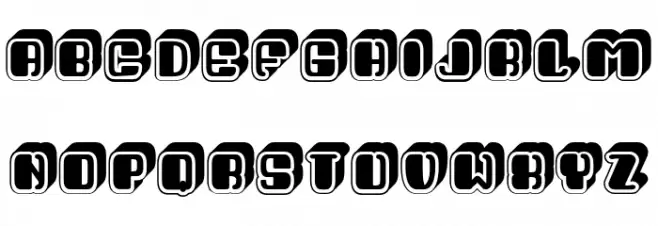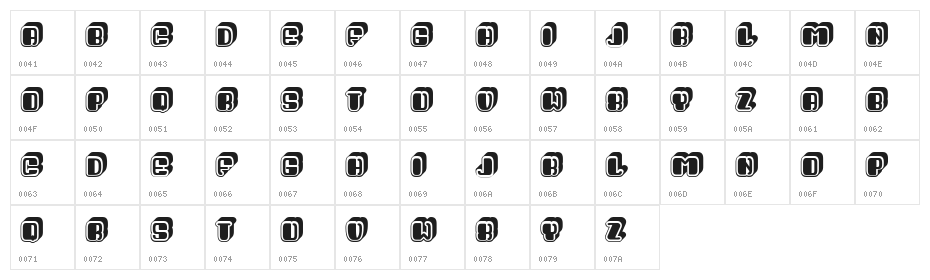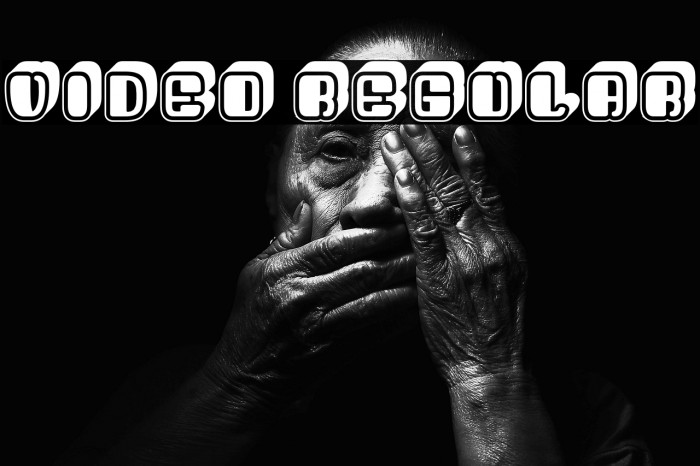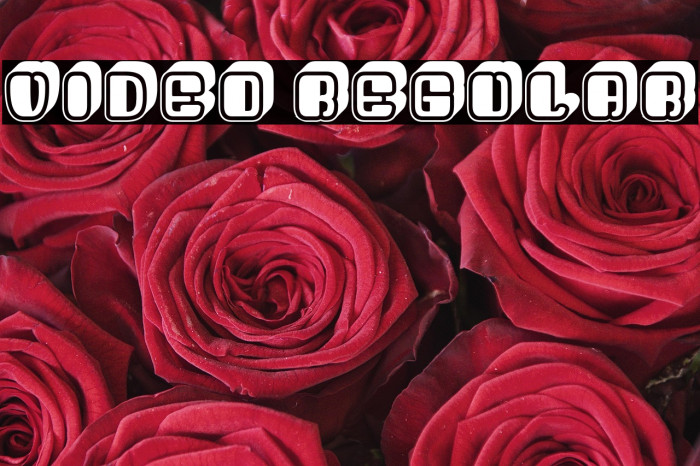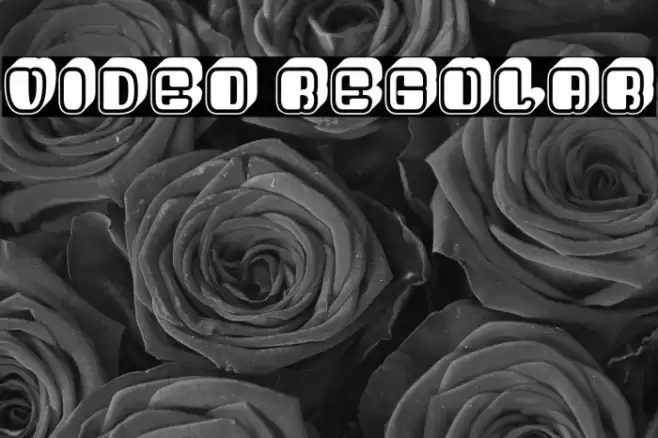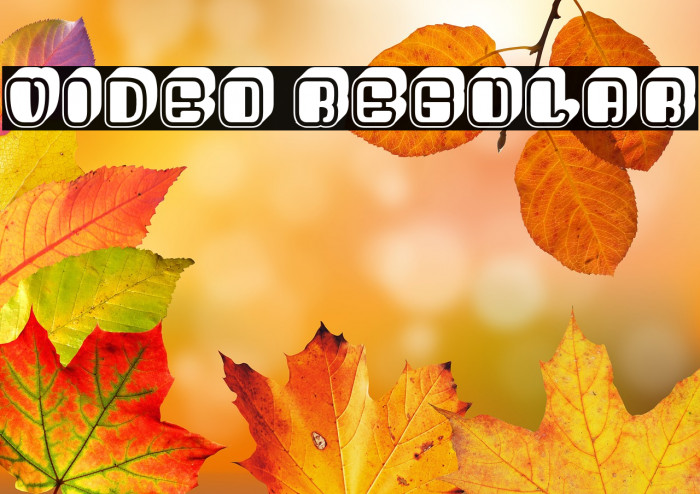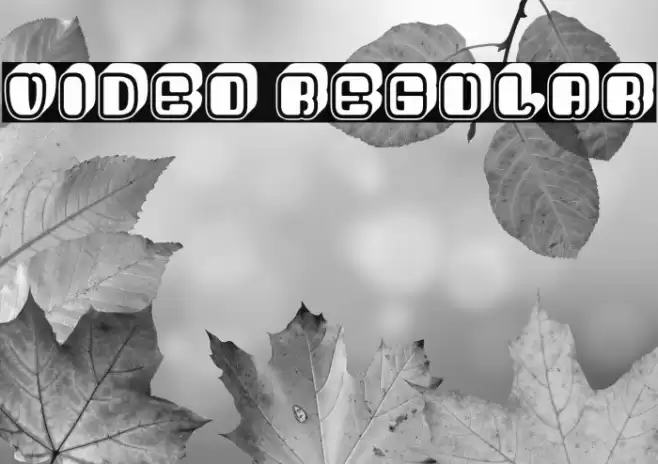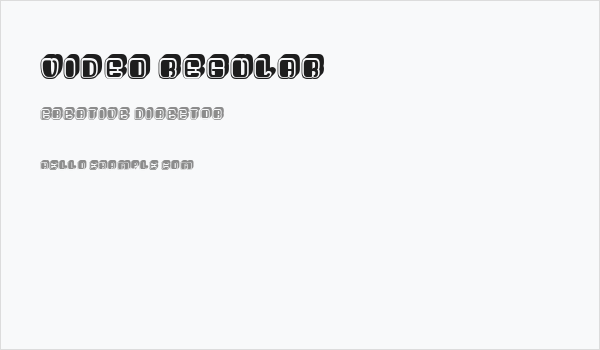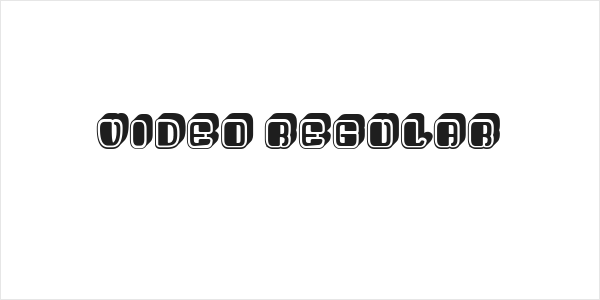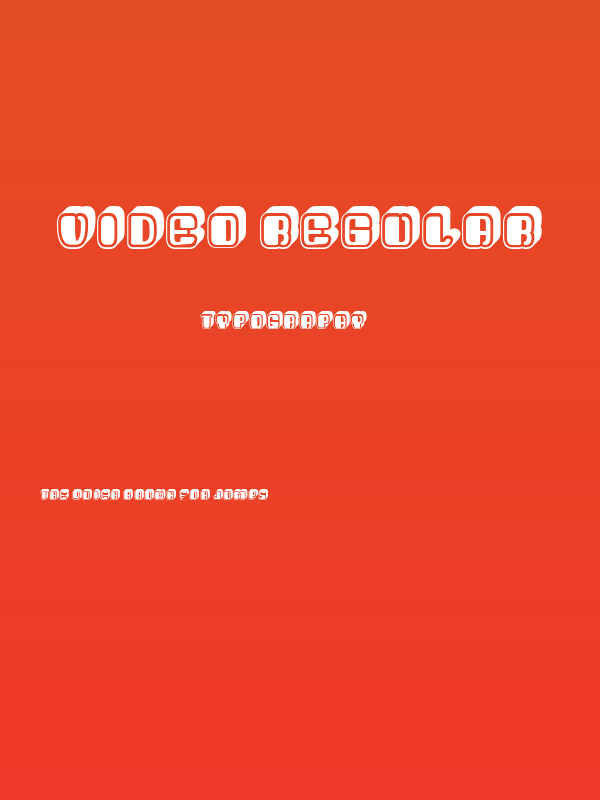
Video Regular Font
Video Regular Description
This font features a bold, three-dimensional appearance with a distinct shadow effect that gives it a striking and dynamic look. The characters are uppercase and have a rounded, blocky structure, which adds to their visual impact. The thick outlines and inner detailing create a sense of depth, making the letters stand out prominently. This style is reminiscent of retro or vintage designs, often used to capture attention and convey a sense of boldness and creativity. The font's unique aesthetic makes it suitable for projects that require a strong visual presence.
| Proposed Projects | Ideal for posters, logos, headlines, and any design needing a bold, eye-catching typeface. |